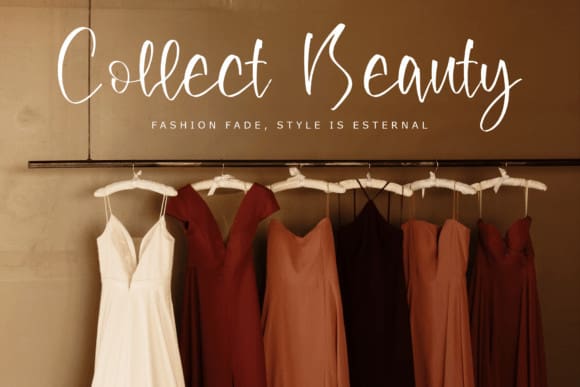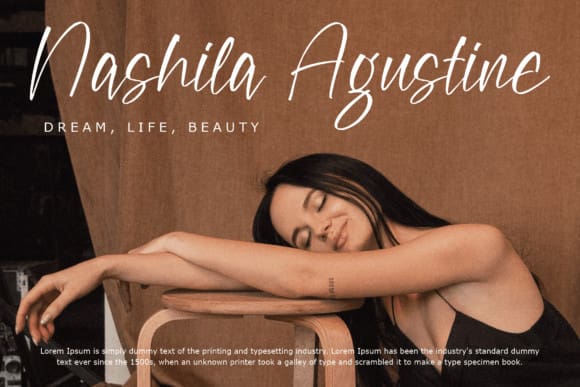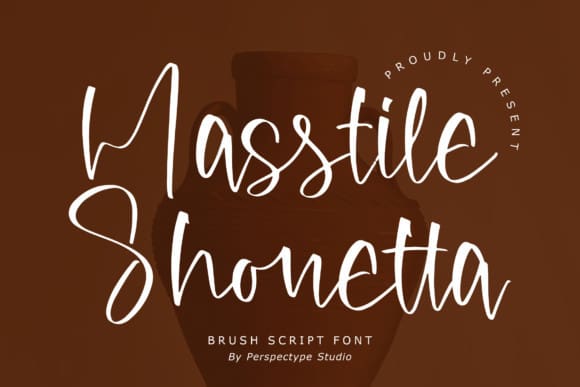
Masstile Shonetta Font
Masstile Shonetta Font is an enchanting handwritten font. This versatile script font has a wide spectrum of applications ranging from greeting cards to headlines and is guaranteed to add a romantic feel to your next project.